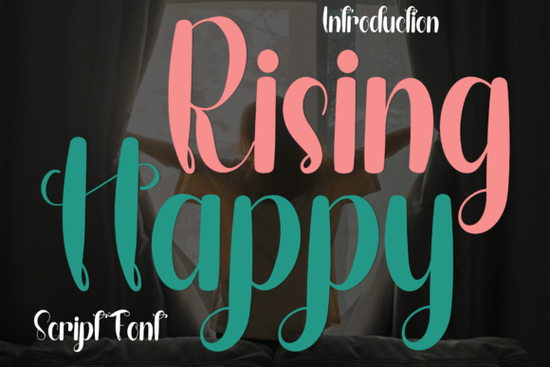
If you need a cheerful addition for your seasonal designs, the Rising Happy Font is a great choice for adding personality to your projects. This typeface captures the warm spirit of the holidays with its decorative elements and whimsical flair. Whether you are creating personalized wrapping paper, writing a festive letter, or designing digital assets for print-on-demand shops, having a reliable script can save hours of manual work. Many designers seek out this specific style because it balances readability with a high level of charm. You can find more information about the file specifications and licensing directly through the official store, such as checking out the Rising Happy page.
Does this script support complex character sets?
One of the most critical features for any digital typeface is how it handles special characters and ligatures. Unlike standard fonts where you might struggle to access specific symbols without complex plug-ins, this design is PUA encoded. This stands for Private Use Area, which allows you to access all the amazing glyphs and ligatures with ease right inside your design software. For crafters who use machines like Cricut or Silhouette, this means fewer errors when exporting cut files.
When working on a large batch of items, such as custom ornaments or party invitations, the ability to swap in decorative swashes instantly makes a big difference. You do not need to manually draw every connector between letters. Instead, the font engine handles the connections automatically when you type certain combinations. This ensures your typography shines with consistent quality across every element of your layout.
How does it fit into other design themes?
While this font is ideal for Christmas, it is worth noting that different projects require different vibes. If your business operates year-round, mixing up your font library helps prevent your brand from looking static. For example, when the football season starts, you might switch to a sportier option like Happy Game Day Script to keep your sports-themed merch relevant without losing that hand-lettered appeal.
Sometimes, you need something warmer and less traditional than typical holiday scripts. If you want to capture a cozy knitted sweater aesthetic for fall collections, looking into alternatives like Knit Heart Script can provide that soft texture effect digitally. On the other hand, if you are doing content for children, the rounded edges of a style found in Children School Script might pair better with educational materials than a highly decorative serif would.
It is also useful to understand contrast in your portfolio. A bright and summery theme calls for something fresher, similar to the energy of Lemon Dreams Script. Even though our focus today is winter cheer, having tools like that available ensures you are ready for April showers or beach days. Additionally, for those tricky Halloween transitions where you want spooky but fun, quirky options like Snakey Script offer unique curves that stand out differently against dark backgrounds.
Best applications for small business owners
For print-on-demand sellers, versatility is key. This font brings a nostalgic ambiance to your words, making it perfect for mugs, tote bags, and t-shirts. Customers often buy holiday apparel that feels personal rather than mass-produced. Using a decorative typeface helps achieve that boutique feel. When designing a tag for a handmade soap shop or a label for homemade jams, this font adds a touch of enchantment that standard Arial or Helvetica cannot match.
Greeting cards are another major opportunity. Because the text is engaging, recipients are more likely to keep the physical card or frame the digital version. You can mix this script with watercolor background images to create layered effects. For web designers, embedding this on a landing page for a holiday sale can increase click-through rates simply by making the headlines pop with emotion.
We recommend testing your files before finalizing bulk orders. Print a sample sheet on regular copy paper first to check spacing and kerning. Sometimes screens display fonts slightly differently than they appear on physical media. Checking legibility at smaller sizes is also important, especially if you plan to put text on small gift tags or stickers.